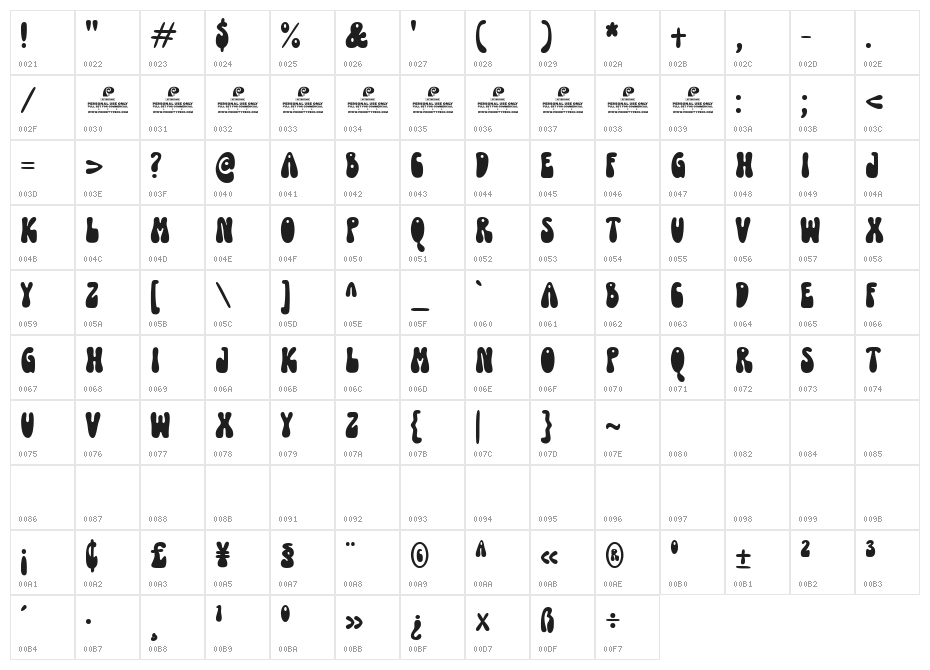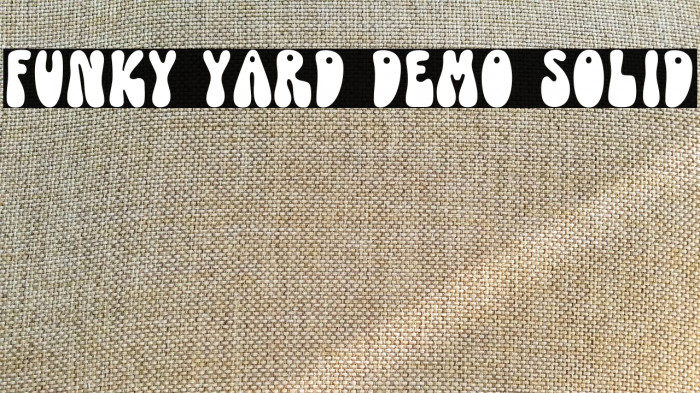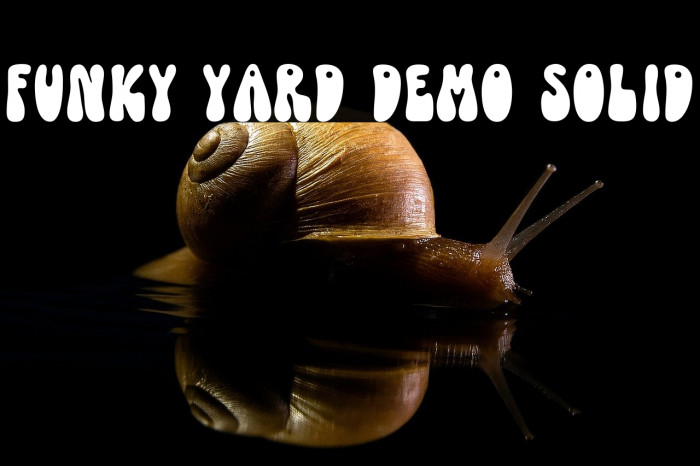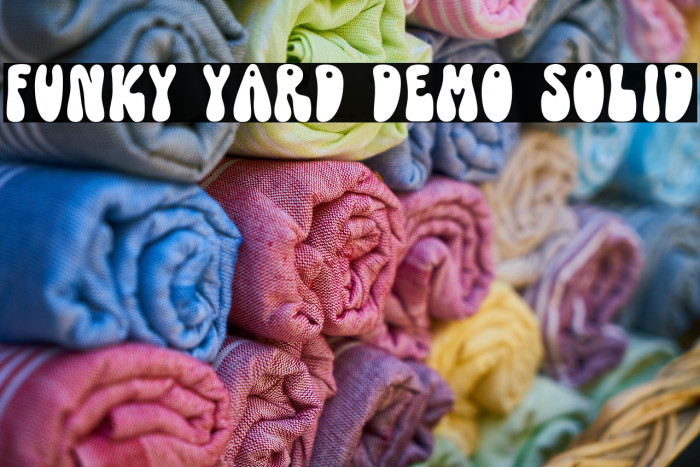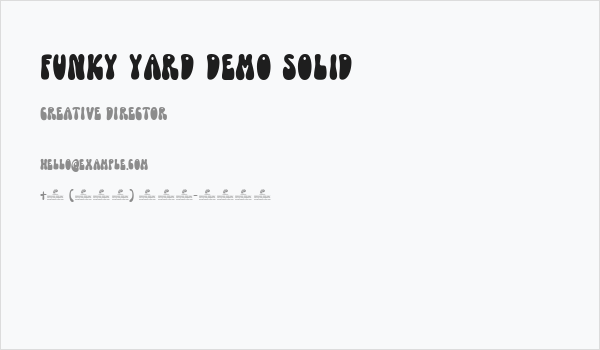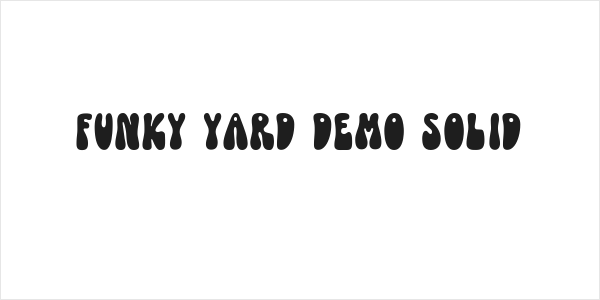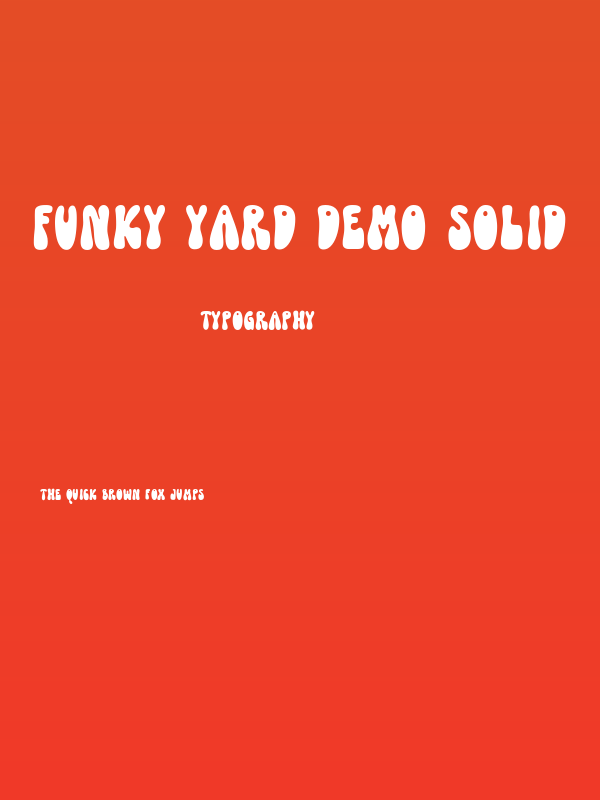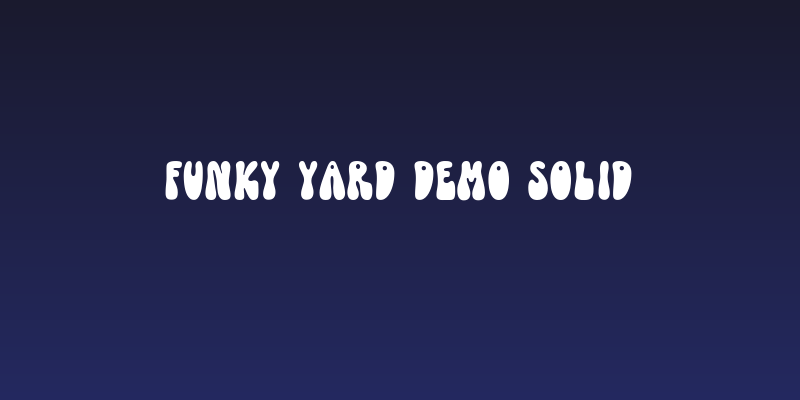
Funky Yard DEMO Solid Font
Funky Yard DEMO Solid Description
This font features a bold, playful design with a distinctly retro vibe. The characters are rounded and bulbous, giving them a fun and quirky appearance. The style is reminiscent of 1960s and 1970s psychedelic art, with a touch of whimsy and a carefree spirit. Each letter is uniquely shaped, contributing to the overall dynamic and lively feel. The font is solid and heavy, making it stand out in any design. It is perfect for creating eye-catching headlines or logos that require a touch of nostalgia and creativity.
| Proposed Projects | Ideal for retro-themed posters, playful branding, music festival flyers, and creative logo designs. |